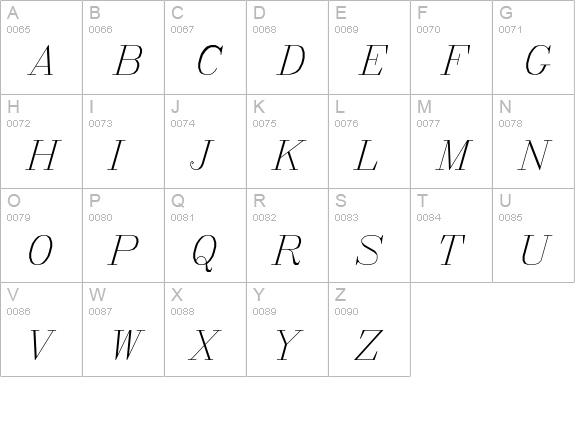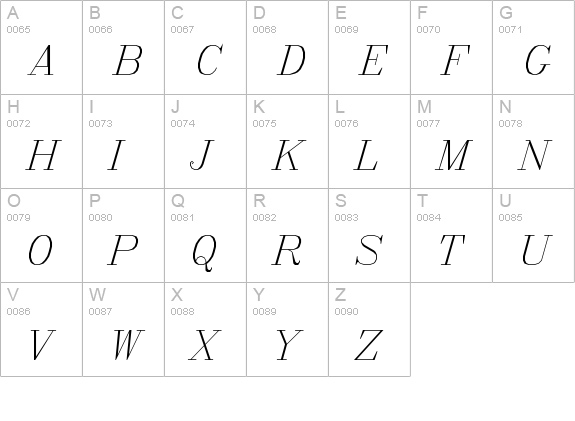
ItalicC Font Details
ItalicC font is a stunning and elegant typeface that exudes sophistication and style. Its unique combination of curves and slanted letters make it perfect for adding a touch of flair to any design project. This font is versatile and can be used for various purposes, including headlines, logos, invitations, and more. One of the most appealing aspects of ItalicC font is that it is completely free to use. It offers designers and creatives the opportunity to enhance their work without having to worry about any financial constraints. This font is freely available to download at FontsMarket.com, a trusted source for high-quality fonts. With its sleek and modern aesthetic, ItalicC font is sure to captivate audiences and leave a lasting impression. It adds a sense of elegance and refinement to any piece of work, making it the perfect choice for those who want to make a statement. Whether you are working on a branding project, a wedding invitation, or a magazine layout, ItalicC font is a versatile and reliable option. Its clean lines and distinct letterforms make it easy to read and legible at any size. With ItalicC font, you can elevate your designs and bring them to the next level. Its timeless appeal and effortless charm make it a must-have for any designer's toolkit. Download ItalicC font for free at FontsMarket.com and start creating stunning visuals that will leave a lasting impression.